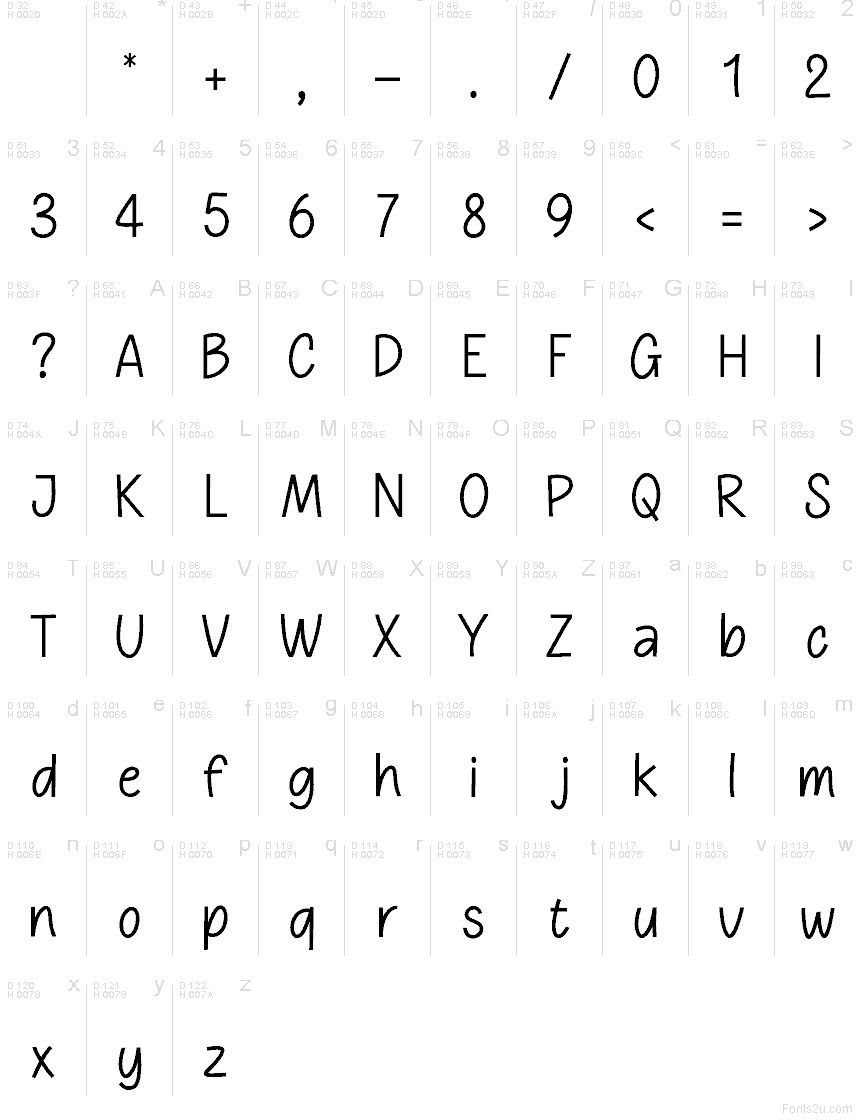
Odane Regular
Odane font by Musthafa Kamal Emje - Afkari Studio is a free handwritten typeface that captures the ease of a quick marker note without losing clarity. The letters are tall, rounded, and slightly irregular, with a steady stroke that feels like writing on a whiteboard—confident but not stiff. It has enough spacing and structure to stay readable in longer lines, so you get a friendly, human voice without the usual messiness of script fonts.
Using Odane, this free font shines on projects that need warmth and approachability: classroom materials, planners, kids’ books, casual branding, social graphics, quote posts, and product packaging. Its clean, upright shapes make it especially good for headings and short blocks of copy. Pair Odane with a simple geometric sans for body text, and let Odane handle the titles, labels, and callouts where personality matters most.